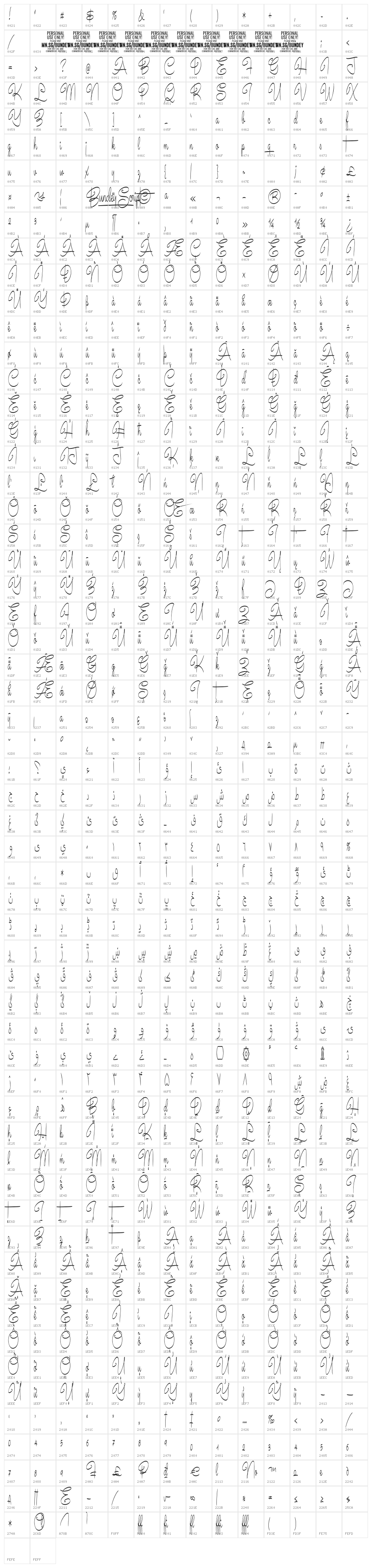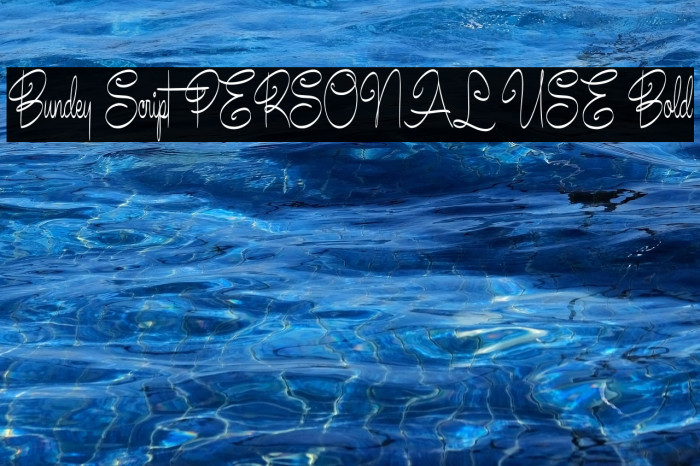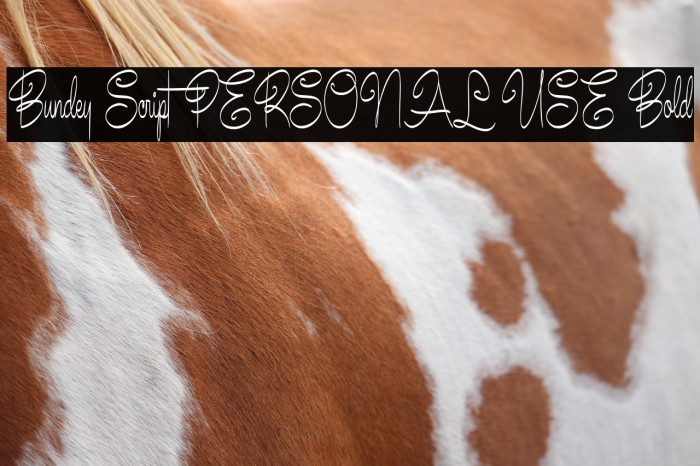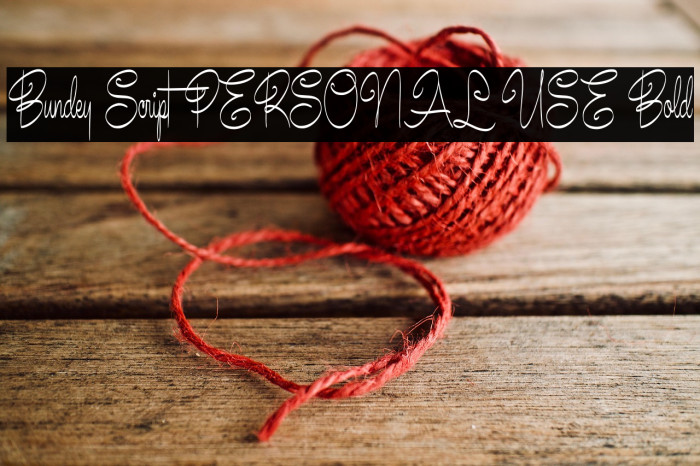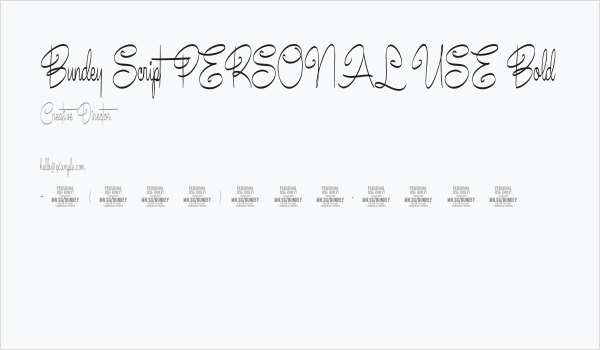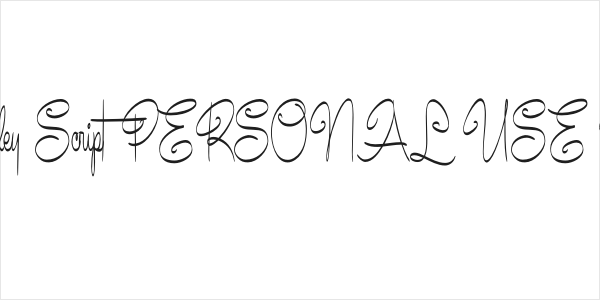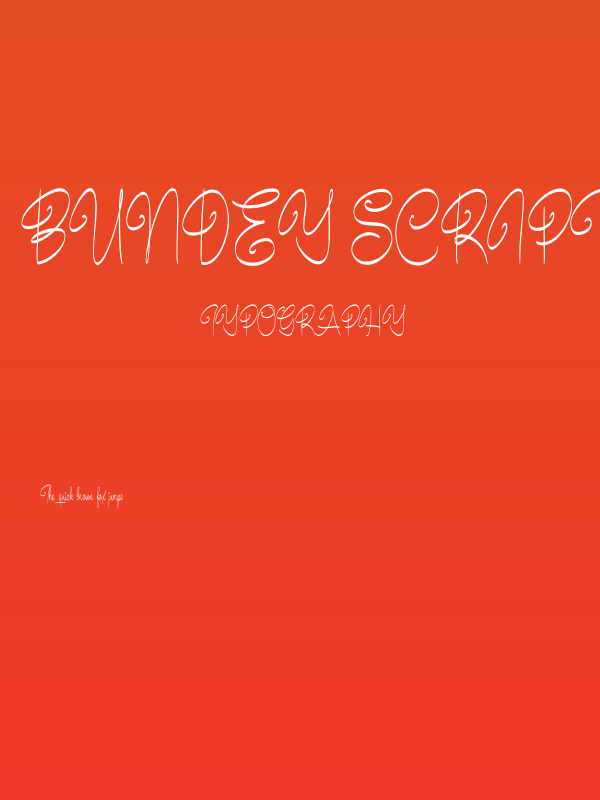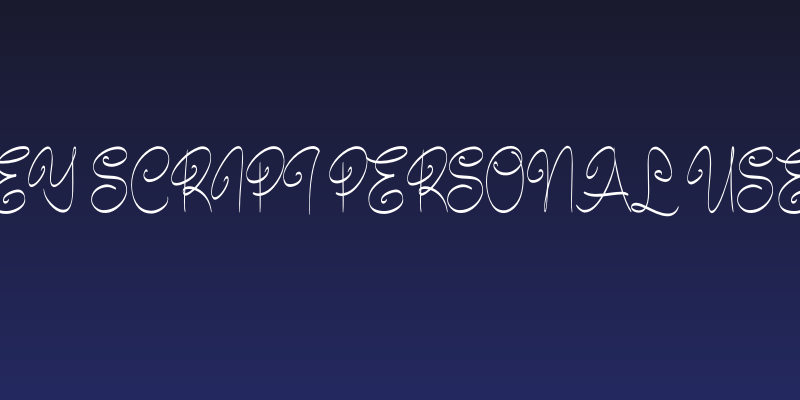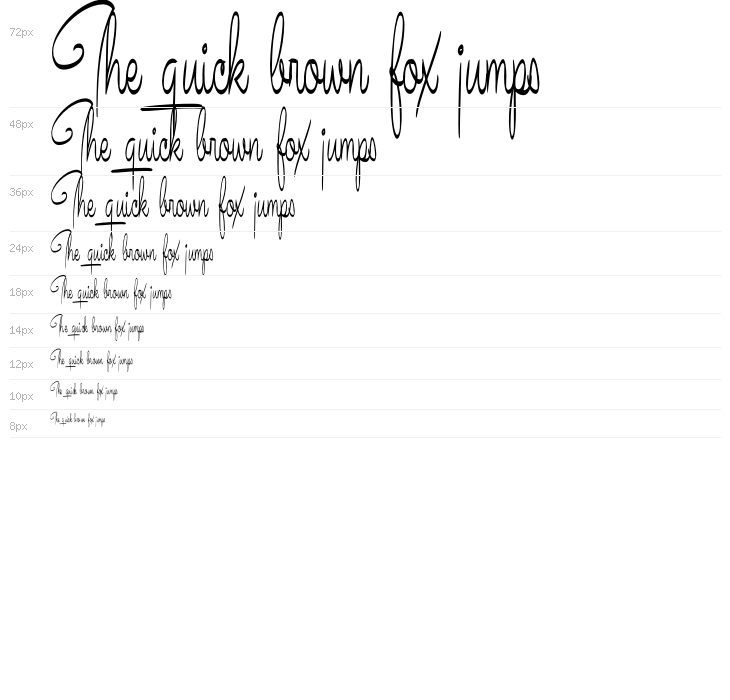
Bundey Script PERSONAL USE Bold Font
Bundey Script PERSONAL USE Bold Description
This font features an elegant and flowing script style, characterized by its smooth, continuous strokes and graceful curves. The uppercase letters are particularly ornate, with intricate loops and swirls that give them a sophisticated appearance. The lowercase letters maintain a consistent fluidity, enhancing readability while preserving the decorative nature of the script. The numerals and special characters are designed to complement the overall aesthetic, with a similar emphasis on curves and fluid lines. This font exudes a sense of elegance and refinement, making it suitable for formal and creative applications.
| Overall Style | Elegant, Decorative |
| Use Case | Headlines, Invitations, Branding |
| Proposed Projects | Ideal for wedding invitations, elegant branding, greeting cards, and decorative headings. |